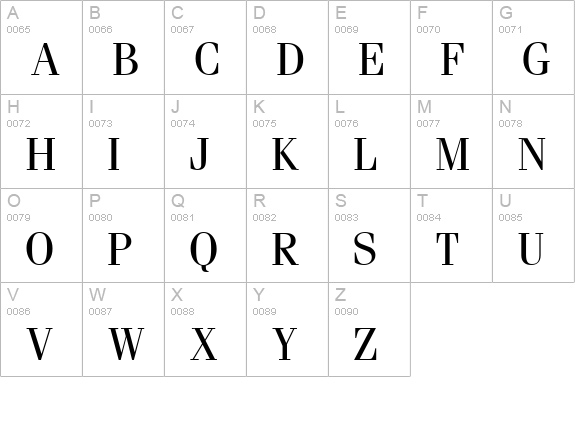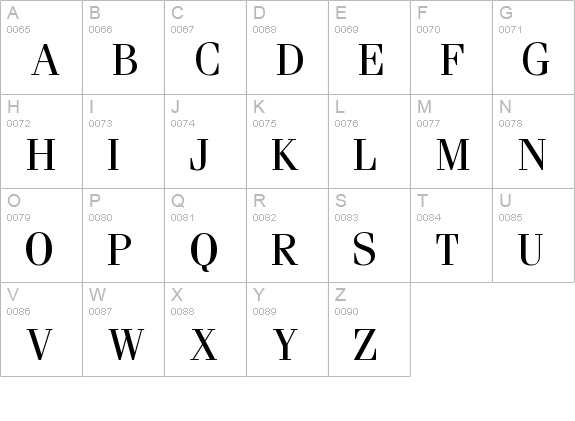
Fenice Regular Font Details
Fenice Regular is the standard, neutral variant in the Fenice typeface family \xE2\x80\x94 well suited to general body text, paragraphs, and standard typographic work.
Fenice Regular is a versatile and elegant font that exudes sophistication and style. Its clean lines and modern design make it perfect for a wide range of projects, from branding to editorial design. The balanced proportions and timeless aesthetic of Fenice Regular make it a go-to choice for designers looking to elevate their work with a touch of class. Best of all, Fenice Regular is available for free download at FontsMarket.com, making it accessible to all creatives looking to add a touch of refinement to their projects. Elevate your designs with Fenice Regular today and experience the beauty of this stunning typeface.